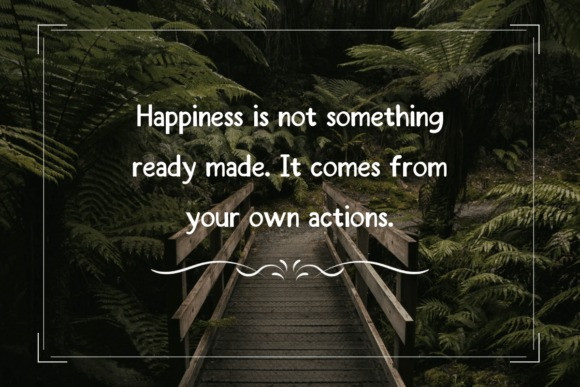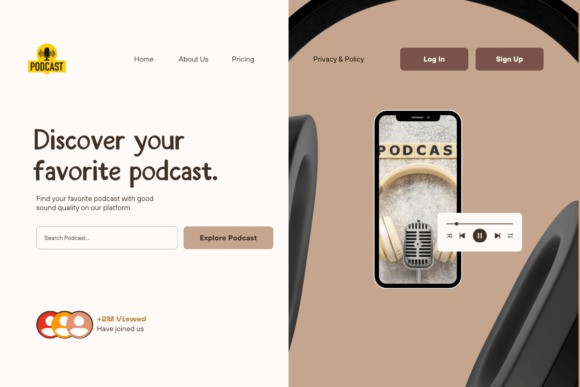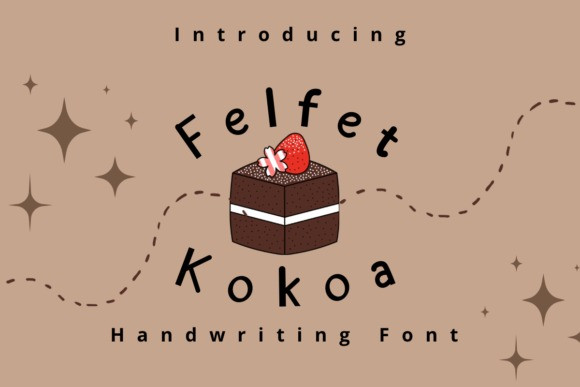
Felfet Cocoa Font
Felfet Cocoa An elegant font blending softness and boldness, ideal for branding, logos, souvenirs, and more. The combination of gentle curves and sharp edges in each letter creates a captivating and distinctive impression for your creative projects.